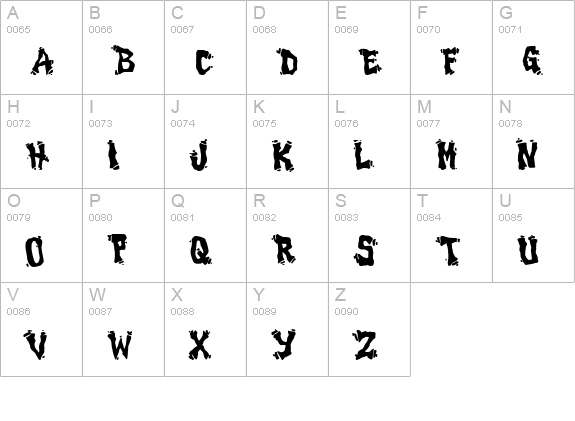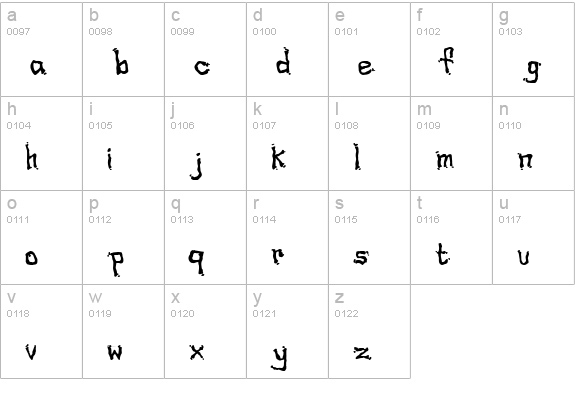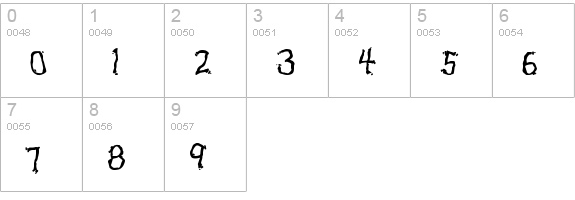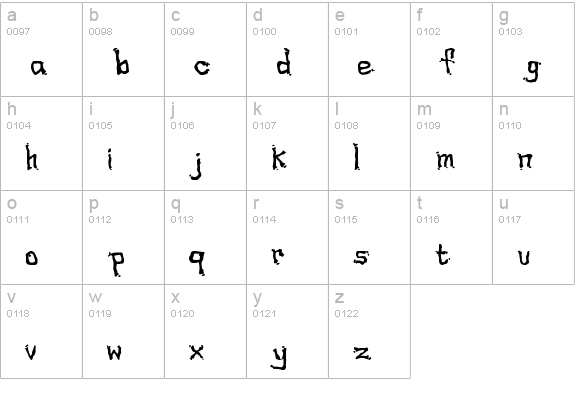
Drippy Font Details
The Drippy font is a fun and whimsical typeface that brings a touch of playfulness to any design project. Its unique style features dripping letters that add a creative and artistic flair to your text. Whether you're working on a poster, logo, or social media graphic, the Drippy font is sure to make a bold statement. Best of all, the Drippy font is completely free to download at FontsMarket.com! You can easily add this eye-catching font to your collection and use it in both personal and commercial projects. Embrace the creativity and uniqueness of the Drippy font today and watch your designs come to life with its vibrant and dynamic appeal.